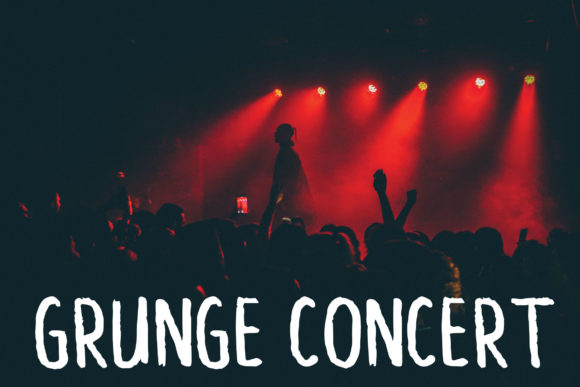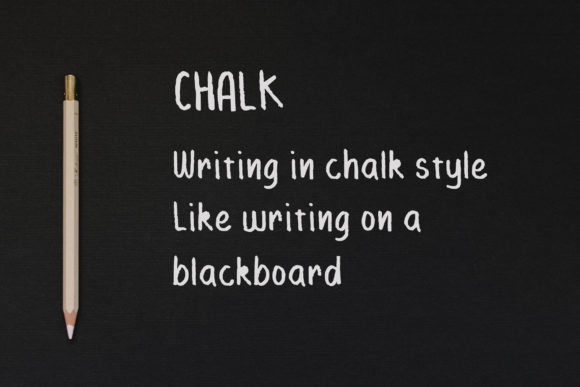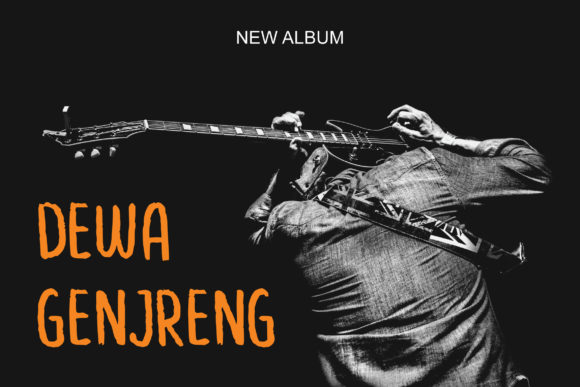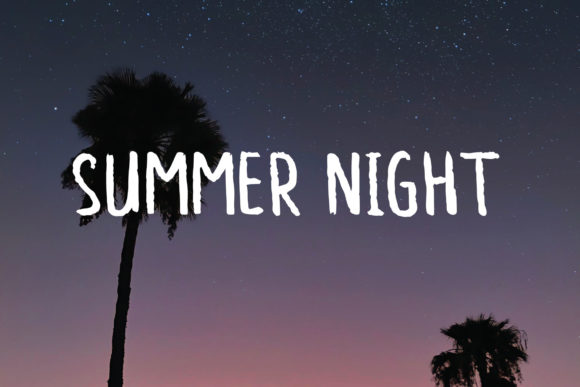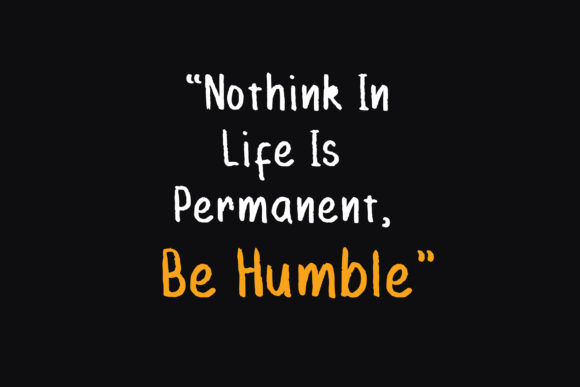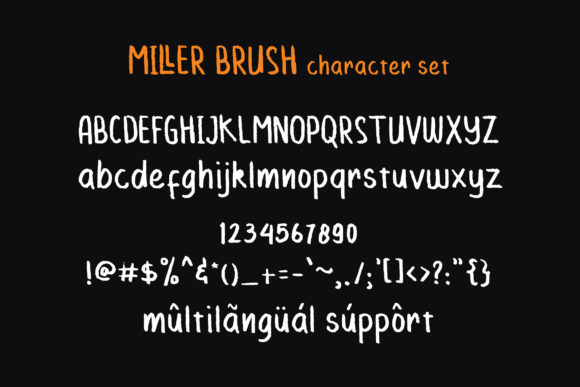
Introduction to Miller Brush Font
Have you ever found yourself stuck in a creative rut, struggling to add that special something to your design project? Maybe you’re working on a new logo, or a poster for a upcoming event. Suddenly, a spark of inspiration hits – you envision a beautiful handwritten font that brings your design to life. Welcome to the world of Miller Brush Font, a free download that will revolutionize your creative projects.
As a valuable resource for designers, Miller Brush Font offers a unique touch that sets your designs apart from the ordinary. With its high-quality, handwritten style, this font is perfect for logos, quotes, posters, and more. Whether you’re working on a personal project or a client-based design, Miller Brush Font is an essential tool to add to your design arsenal.
With its transparent background and endless design possibilities, Miller Brush Font is a game-changer for designers looking to elevate their creative projects. Say goodbye to bland designs and hello to a world of creativity and inspiration with Miller Brush Font.
Key Features of Miller Brush Font
- High-quality font design for creative projects, ideal for use in various design resources.
- Miller Brush Font features a transparent background, allowing for easy layering and manipulation in creative projects.
- Miller Brush Font is available in a single size, but its high resolution (up to 1024 DPI) ensures crisp and clear display in various resolutions.
- Unique brush-stroke design, adding a touch of hand-crafted elegance to any creative project.
- Can be used for a variety of design purposes, from typography and graphics to logos and branding elements.
Honest Review: Miller Brush Font
As a designer, I’ve had the chance to work with a wide range of fonts, and I’m excited to share my thoughts on the Miller Brush Font. I was drawn to this font because of its unique, hand-painted look that adds a touch of warmth to any design project.
- ✨ The Miller Brush Font has a high-quality feel to it, making it perfect for creative projects where you want to stand out from the crowd.
- ✨ The transparent background option is a great feature for designers who want to add some extra flair to their designs.
- ⚠️ The font may not be suitable for all design projects, as it can be quite bold and eye-catching.
- ⚠️ Some users may find the font a bit difficult to read, especially at smaller font sizes.
Overall, I’m really impressed with the Miller Brush Font. It’s a great addition to any design resource library, and I can see it being used in a variety of creative projects. Whether you’re designing a logo, brochure, or website, this font is definitely worth checking out.
Tips for Getting the Most Out of Miller Brush Font
To get the most out of the Miller Brush Font, use it in combination with other design elements to create a cohesive look. Experiment with different font sizes and colors to achieve the desired effect.
The Miller Brush Font is perfect for creative projects such as logos, business cards, and brochures. Its high-quality design makes it ideal for use in presentations, documents, and websites.